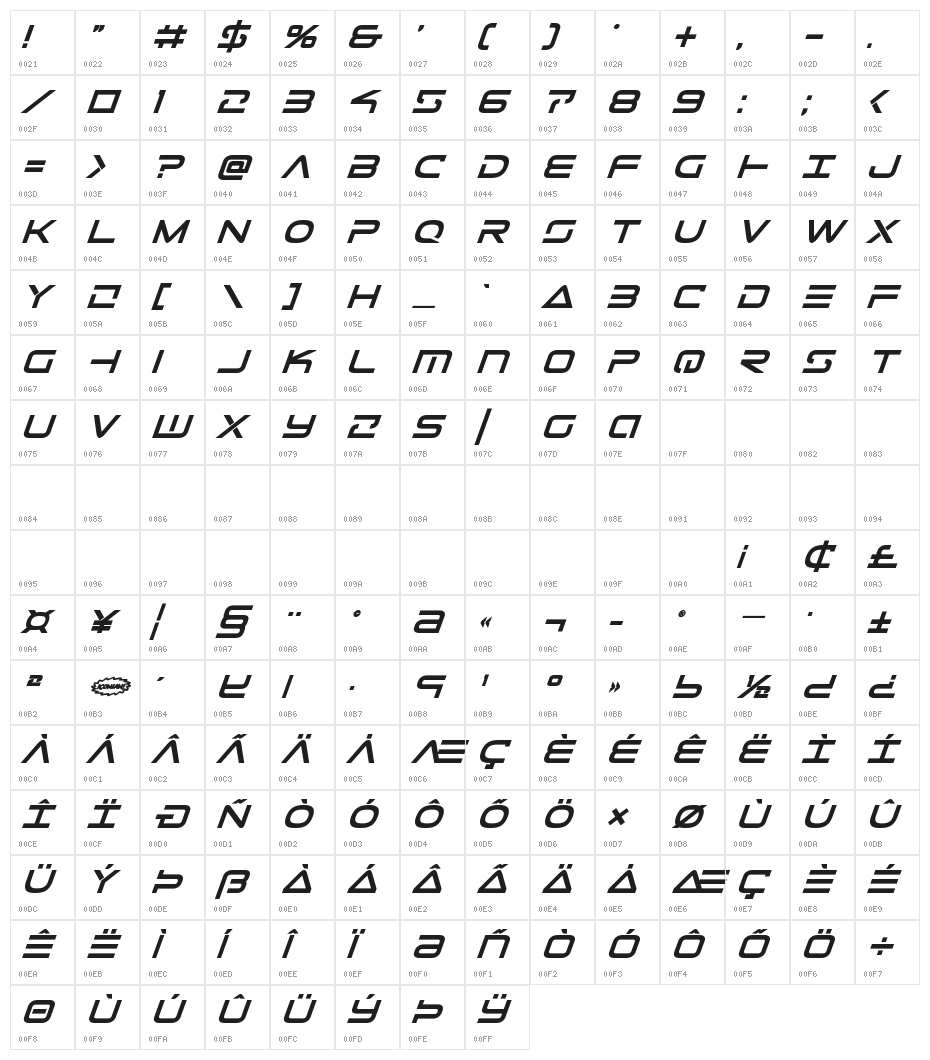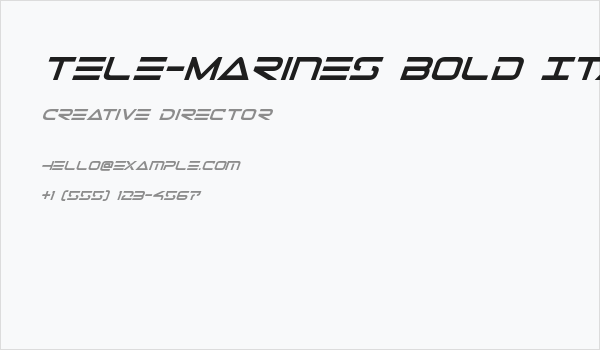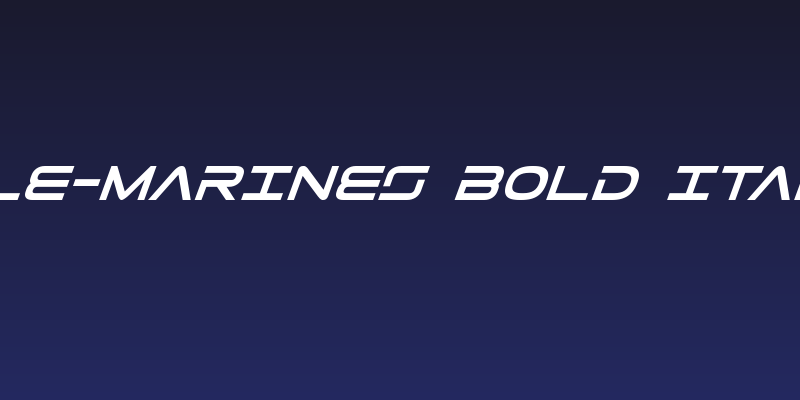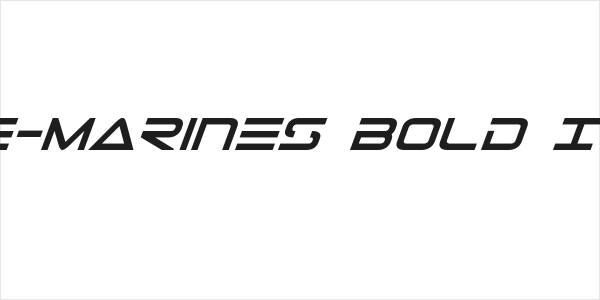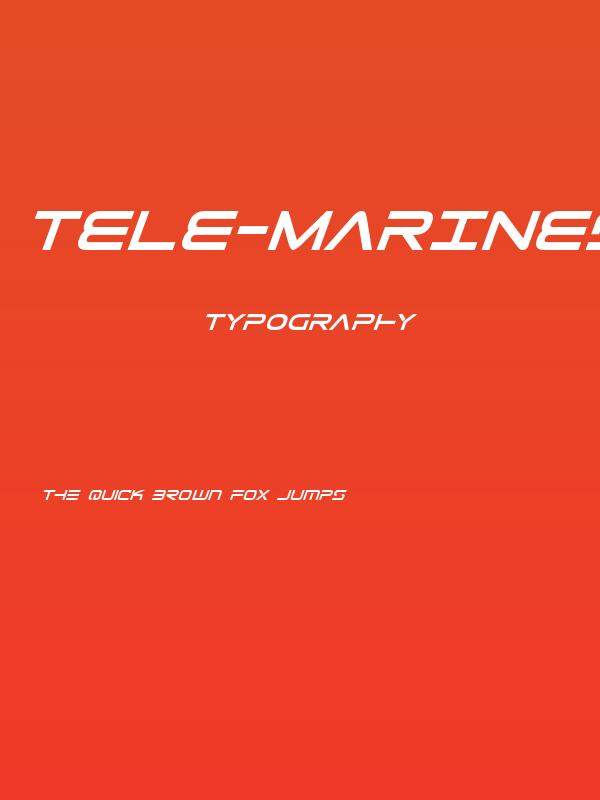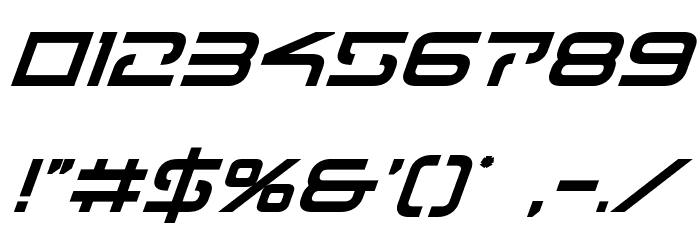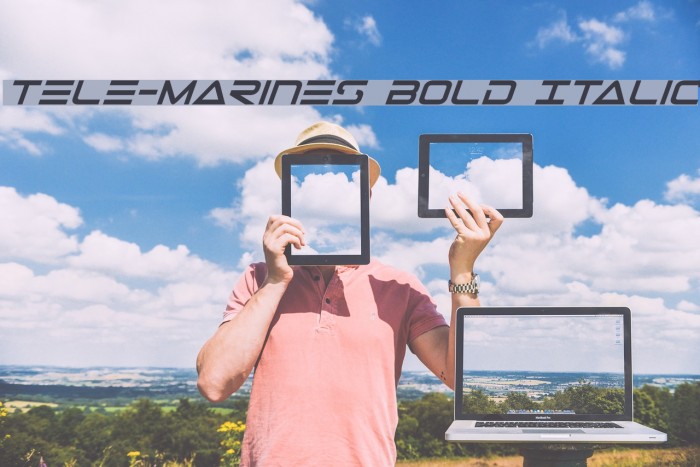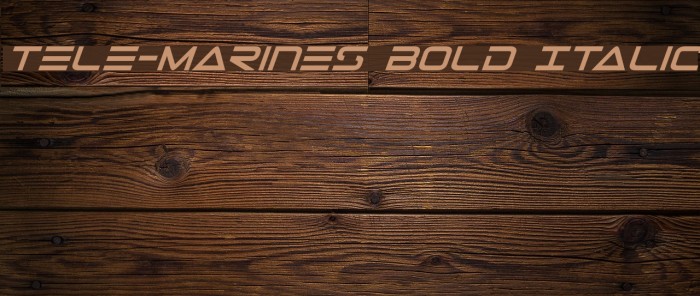
Tele-Marines Bold Italic Font
Tele-Marines Bold Italic Description
This font exhibits a futuristic and dynamic style, characterized by its bold and italicized letterforms. The angular and slanted design gives it a sense of motion and speed, making it ideal for projects that require a modern and energetic look. The uppercase and lowercase letters maintain a consistent geometric structure, while the numbers and special characters complement the overall aesthetic. The font's sharp edges and clean lines contribute to its high-tech appearance, making it suitable for technology-related branding or digital interfaces.
| Overall Style | Futuristic |
| Use Case | Logos, Headlines, Digital interfaces |
| Proposed Projects | Ideal for technology branding, digital interfaces, sports team logos, and sci-fi themed designs. |